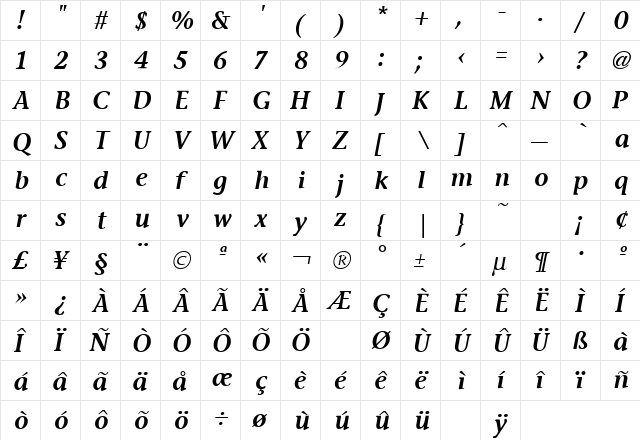
Stone Informal Semi Bold Italic Font Preview
Design Context for Stone Informal Semi Bold Typeface
Stone Informal Semi Bold is a composed and adaptable typeface that performs quietly and consistently across a wide range of design contexts. The dynamic lean of this cut emphasises speed and emphasis in any layout. Its bold stroke weight gives it real presence on the page.
Pro Tip: Try Stone Informal Semi Bold for annotation and caption copy alongside an upright companion — the contrast in angle creates a dynamic but ordered typographic system.